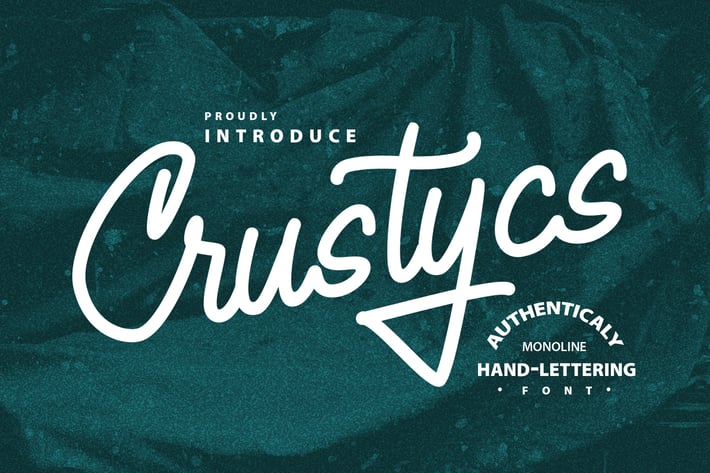
Crustycs | Monoline Hand-Lettering Font
Crustycs | Monoline Hand-Lettering Font with a calligraphy style, So beautiful on invitation like greeting cards, branding materials, business cards, quotes, posters, and more!